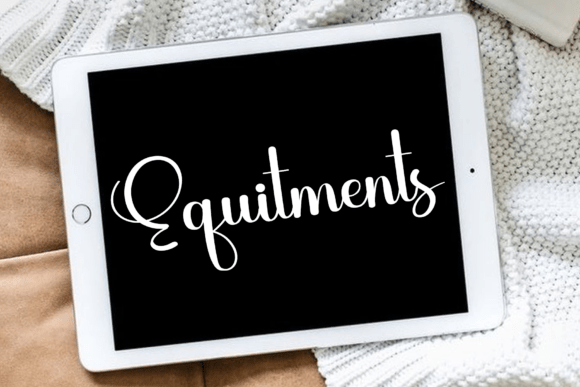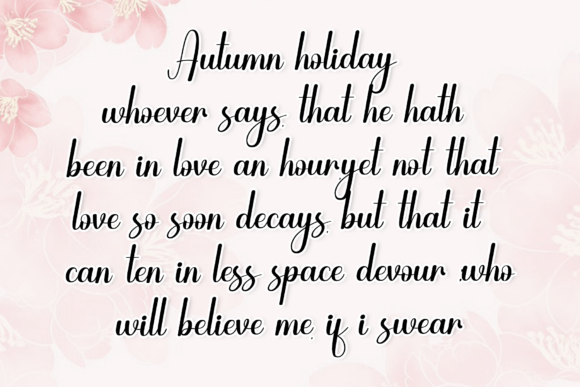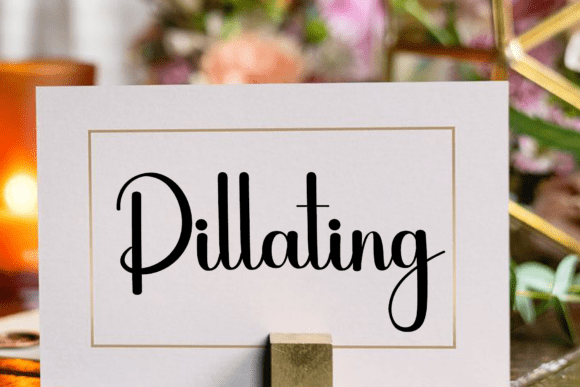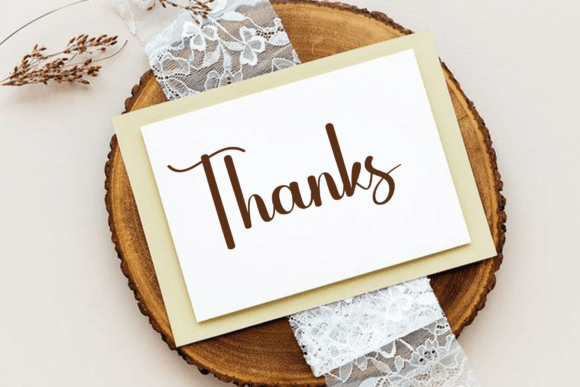
Introducing Equilibrium Font: The Epitome of Sophistication and Elegance
In the realm of typography, few fonts manage to strike a balance between elegance and warmth. Equilibrium Font, however, is a shining exception. This sophisticated and rhythmic script font seamlessly blends a calligraphic style with a warm, organic aesthetic, making it an ideal choice for designers and crafters seeking to elevate their brand’s visual identity.
The Distinctive Characteristics of Equilibrium Font
At the heart of Equilibrium Font lies its defining characteristic: the use of sweeping, looping ascenders. These fluid strokes create a sense of customized, artisanal artistry, evoking the feeling of handcrafted luxury. The font’s calligraphic style is meticulously crafted to convey a sense of refinement and poise, while its warm and organic undertones add a touch of humanity and approachability.
Ideal Applications for Equilibrium Font
Given its unique blend of sophistication and warmth, Equilibrium Font is perfectly suited for a variety of applications. Some of the most notable uses include:
- Artisanal Food Branding: Equilibrium Font’s rustic yet refined aesthetic makes it an excellent choice for artisanal food brands seeking to convey a sense of handcrafted quality and tradition.
- Boutique Product Packaging: The font’s elegant and sophisticated style lends itself beautifully to boutique product packaging, where it can help elevate a brand’s visual identity and create a lasting impression.
- Upscale Lifestyle Marketing: For brands operating in the upscale lifestyle sector, Equilibrium Font offers a typographic solution that exudes luxury, refinement, and exclusivity.
- Creative Editorial Titles: The font’s unique character and rhythmic flow also make it an excellent choice for creative editorial titles, where it can add a touch of elegance and sophistication to headings and subheadings.
Why Designers and Crafters Love Equilibrium Font
Designers and crafters alike are drawn to Equilibrium Font for its versatility, elegance, and ability to convey a sense of artisanal craftsmanship. Here are just a few reasons why:
- Unique and Memorable: Equilibrium Font’s distinctive looping ascenders and calligraphic style make it a standout in the world of typography, ensuring that brands and designs stand out from the crowd.
- Flexible and Adaptable: The font’s warm and organic aesthetic allows it to adapt seamlessly to a wide range of design applications, from packaging and branding to editorial and digital media.
- Elegant and Refined: Equilibrium Font’s sophisticated style and refined aesthetic make it an excellent choice for designers seeking to create high-end, luxury brands and designs.
Tips for Using Equilibrium Font Effectively
To get the most out of Equilibrium Font, consider the following tips:
- Pair with Neutral Backgrounds: Equilibrium Font’s bold and elegant style is best paired with neutral backgrounds, which allow the font to take center stage and create a lasting impression.
- Experiment with Font Sizes: The font’s versatility allows it to be used effectively at a range of font sizes, from large headings to smaller body text.
- Emphasize the Looping Ascenders: The font’s distinctive looping ascenders are a key feature of its design. Consider emphasizing these elements through creative typography and layout techniques.
In conclusion, Equilibrium Font is a sophisticated and elegant script font that offers a unique blend of calligraphic style and warm, organic aesthetic. Its distinctive looping ascenders and refined style make it an ideal choice for designers and crafters seeking to create high-end, luxury brands and designs. Whether used for artisanal food branding, boutique product packaging, upscale lifestyle marketing, or creative editorial titles, Equilibrium Font is sure to leave a lasting impression.